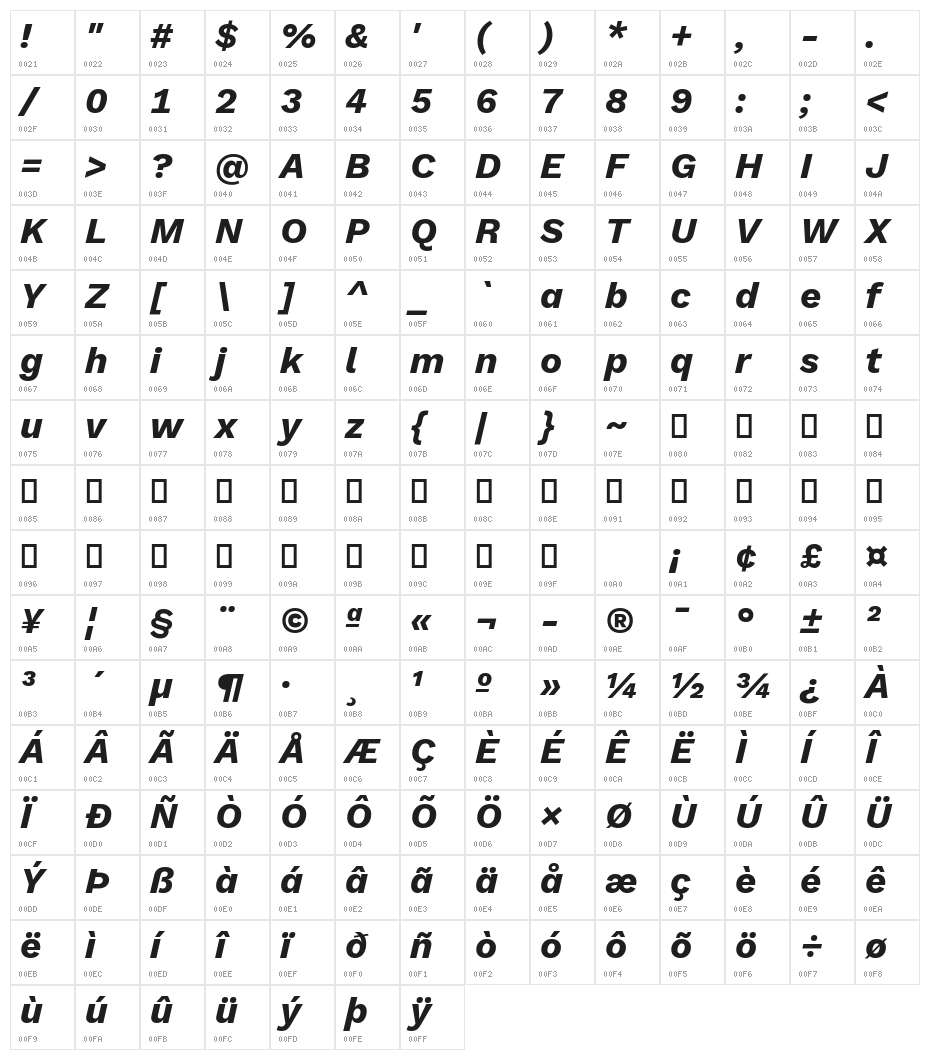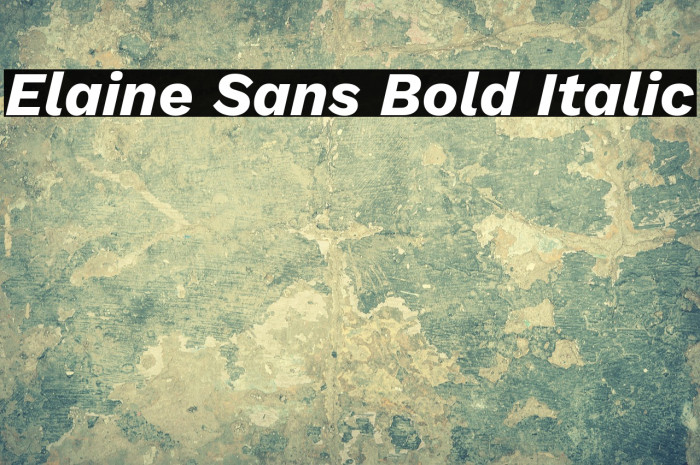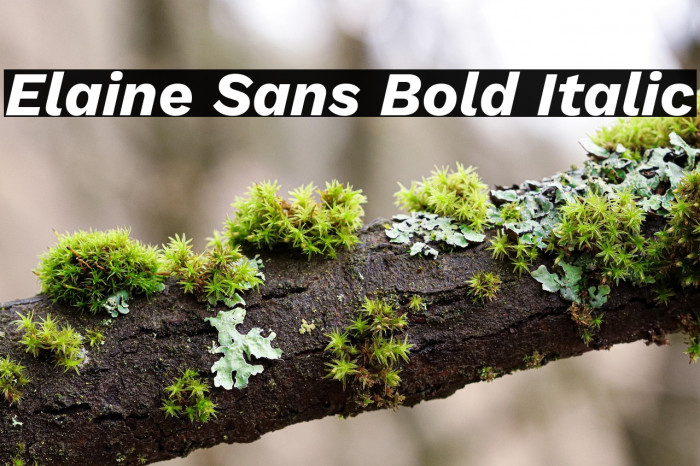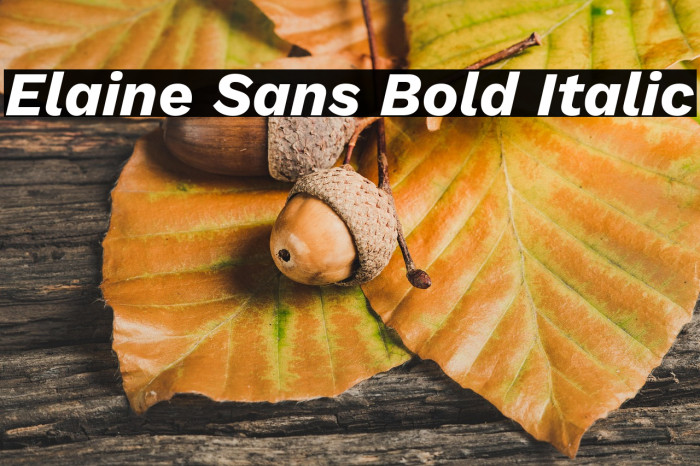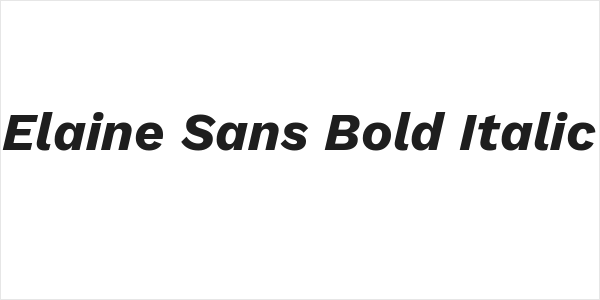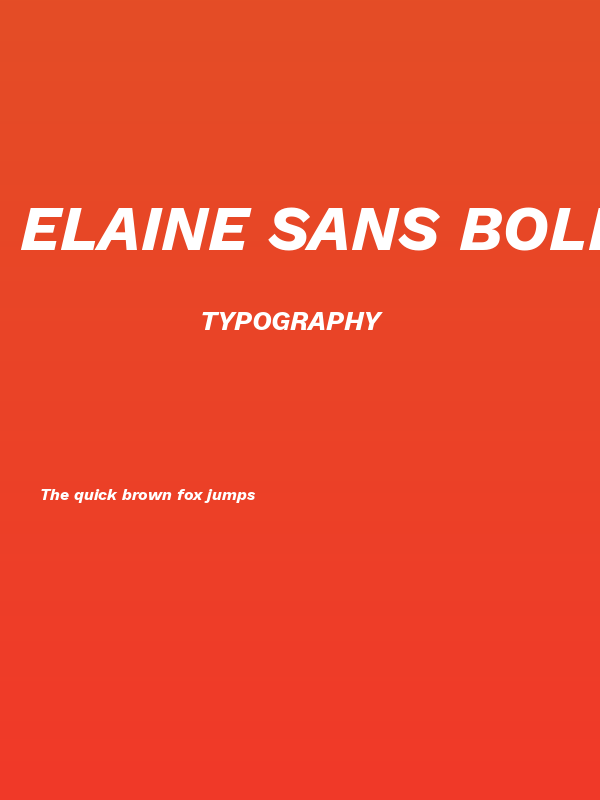
Elaine Sans Bold Italic Font
Elaine Sans Bold Italic Description
This font features a bold and italic style, offering a dynamic and assertive appearance. The characters are well-defined with a slight slant, enhancing readability while adding a touch of elegance. The strokes are consistent in thickness, providing a uniform look across all characters. Its sans-serif nature ensures a modern and clean aesthetic, making it suitable for various design applications. The font maintains a balanced proportion between the height and width of the characters, ensuring legibility even at smaller sizes. The character spacing is normal, allowing for easy reading without feeling cramped.
Use CaseHeadlines, Logos, Branding
Proposed ProjectsIdeal for branding, advertising, headlines, and digital media where a strong and modern presence is desired.